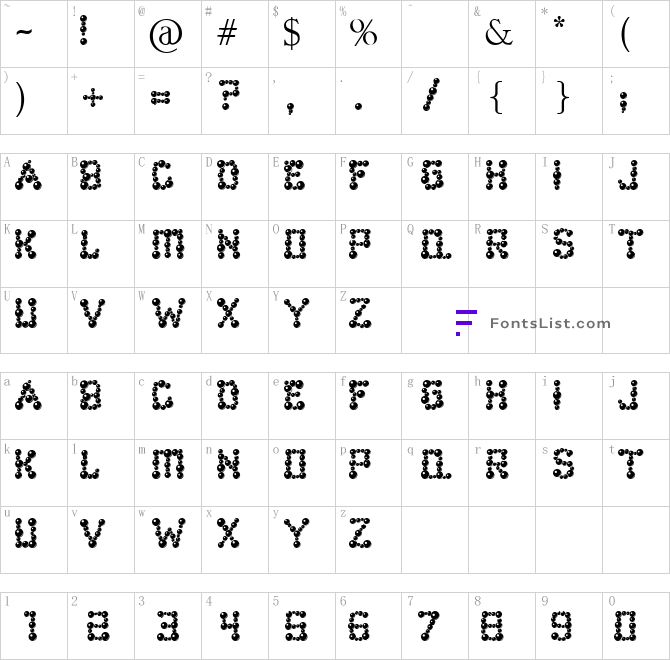
- Font Name:ballbearings
ballbearings.ttf is a very beautiful artistic font, ballbearings.ttf is widely used in the design and printing of various books and pictures,ballbearings.ttf has a strong visual impact,ballbearings.ttf is a commonly used font in newspapers, magazines and books, and is used in posters, e-commerce Poster design, store design, logo design, font design and other fields.ballbearings.